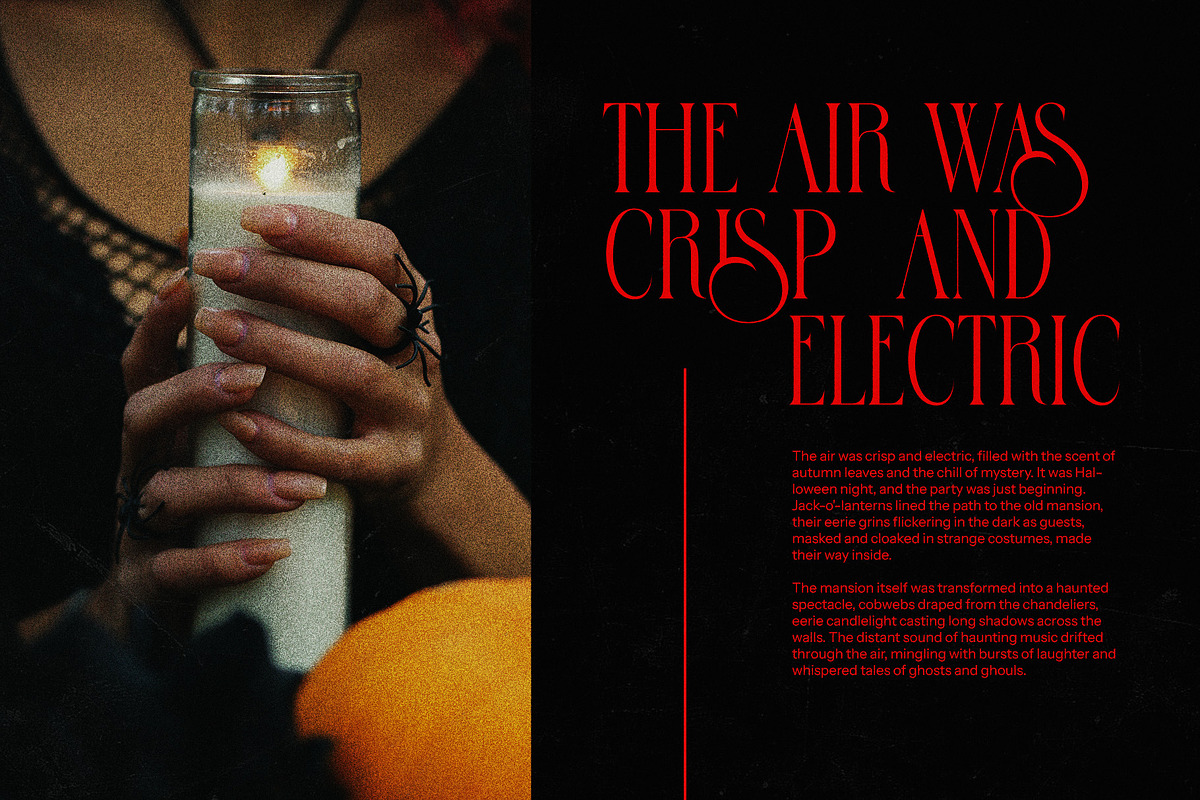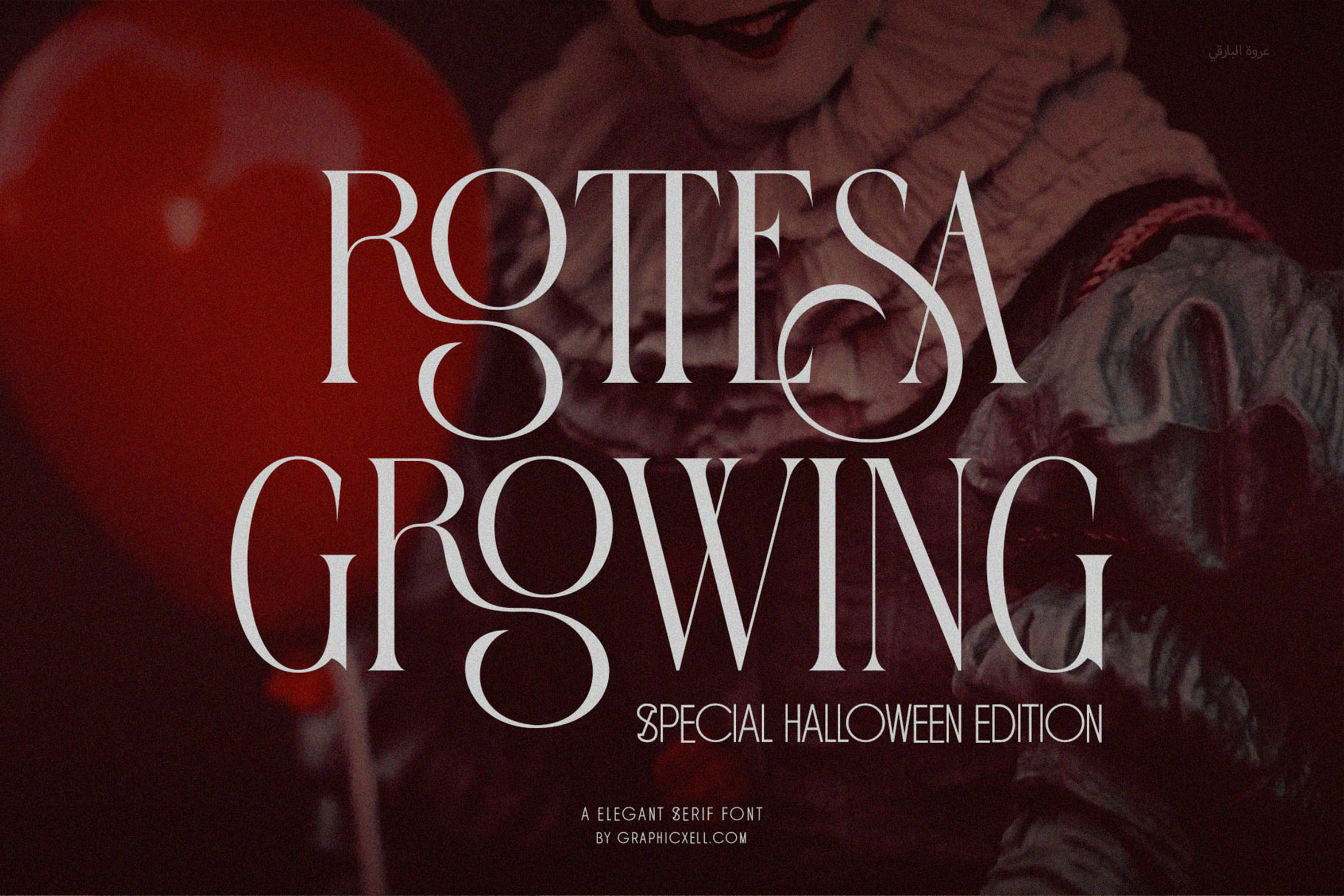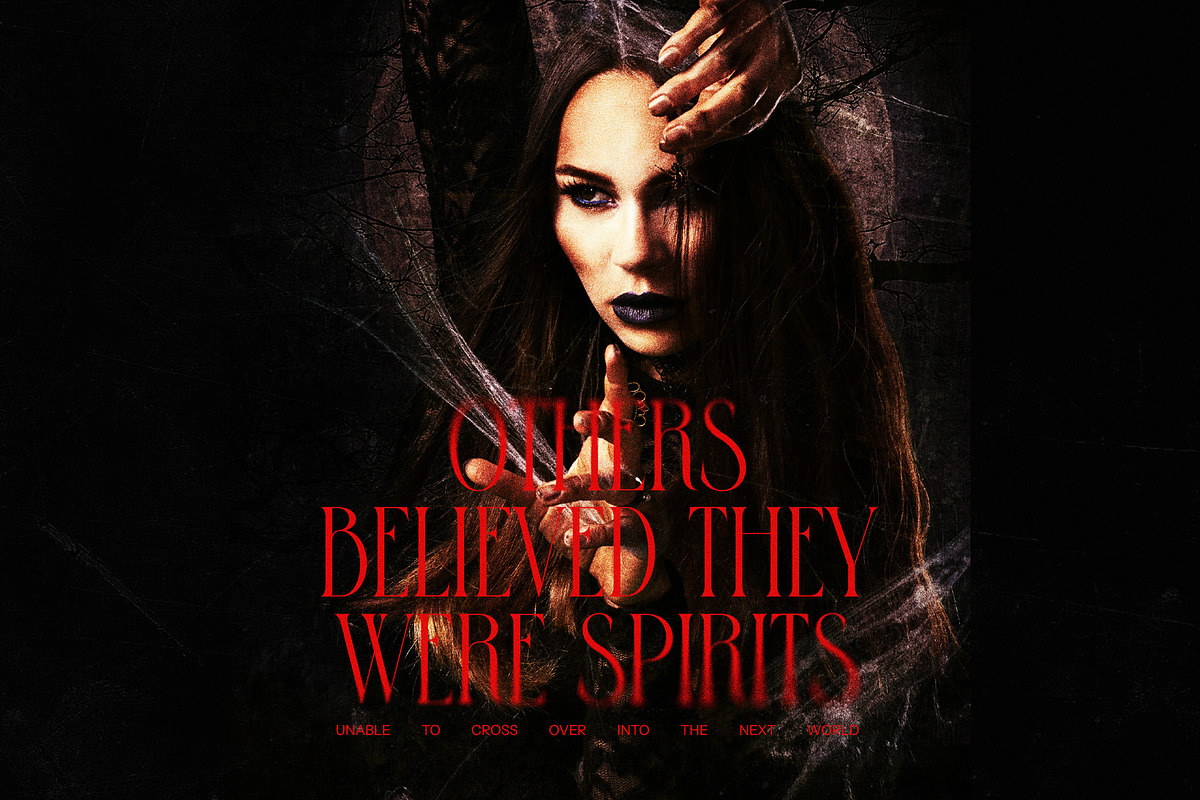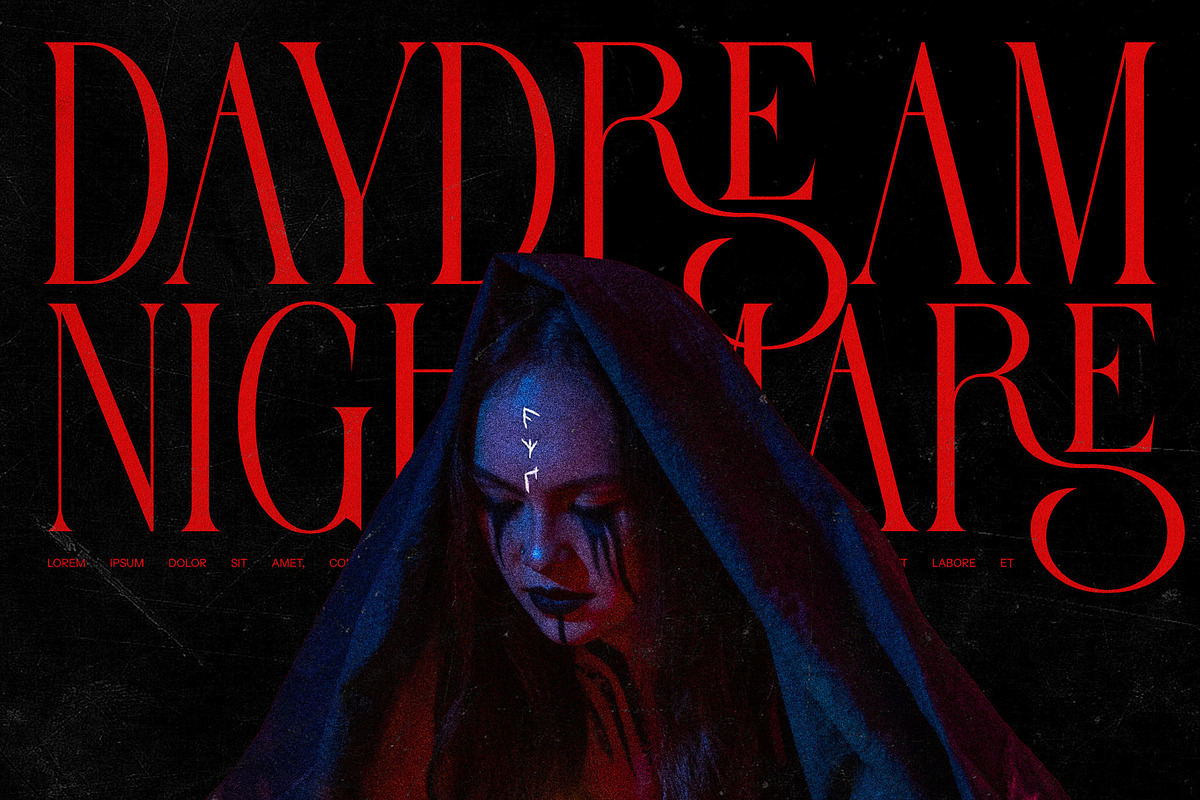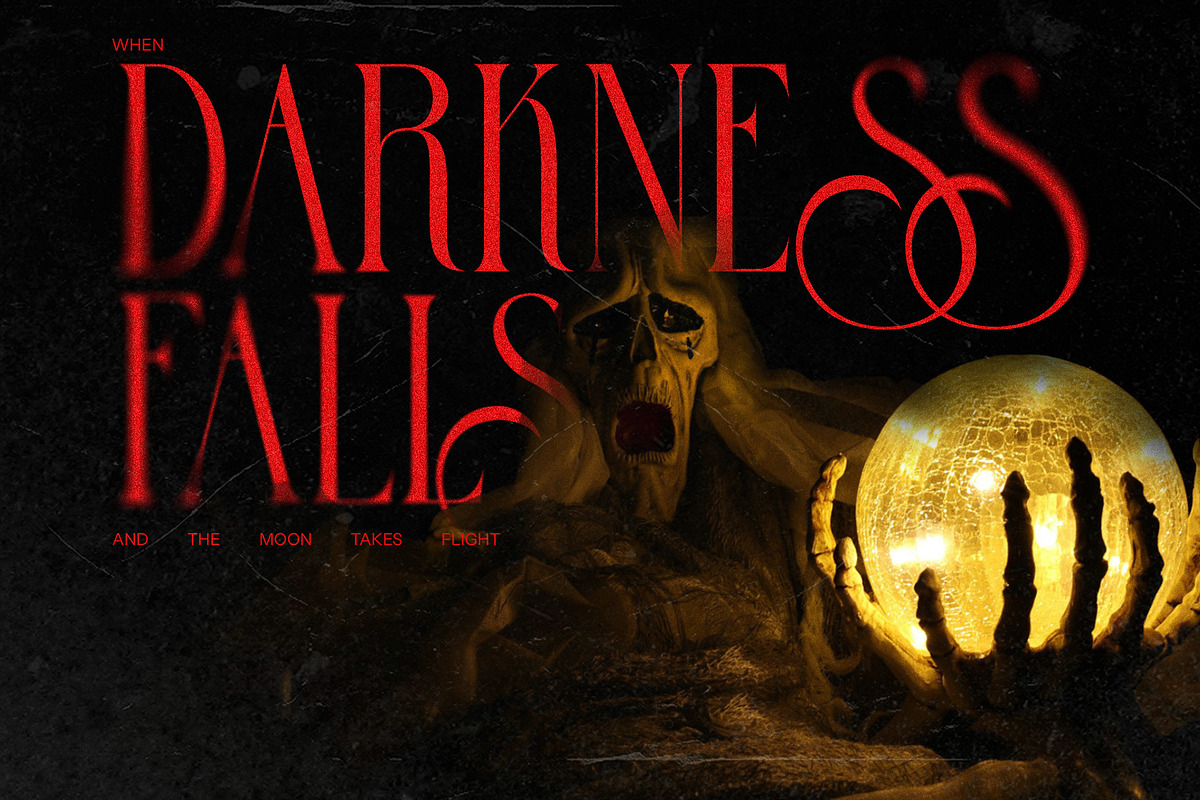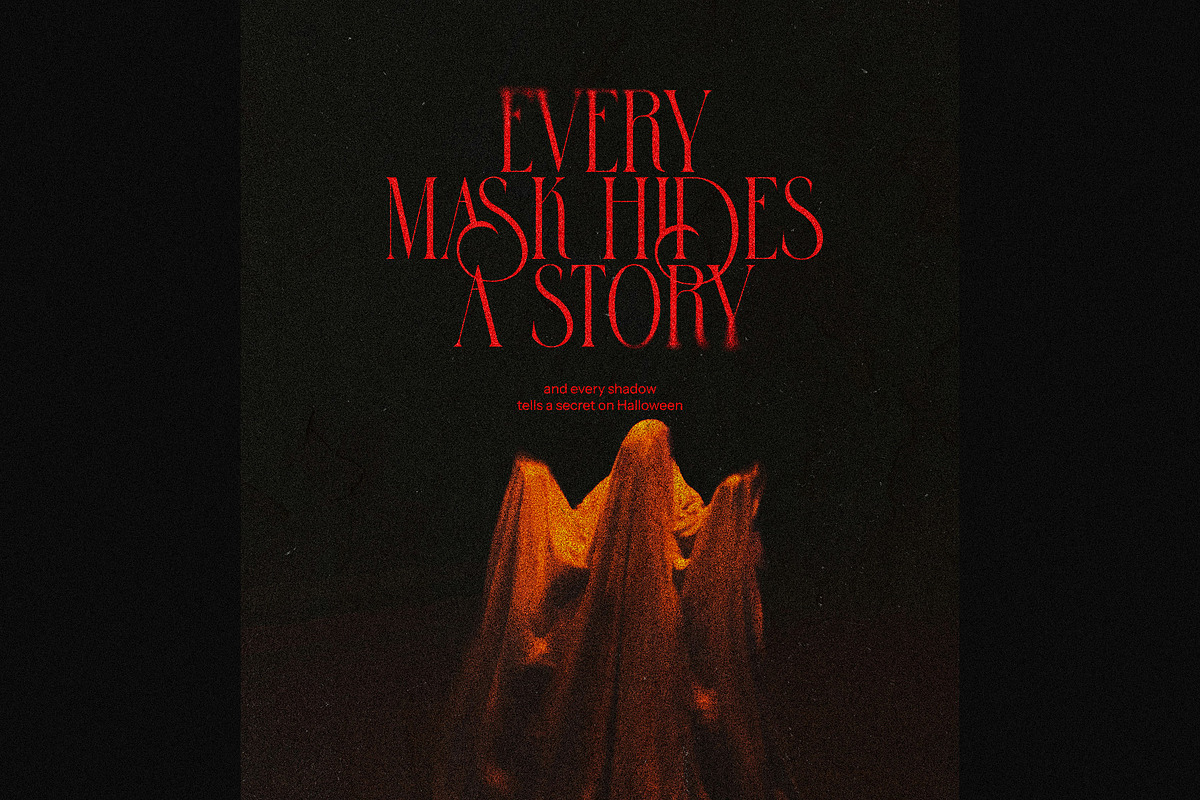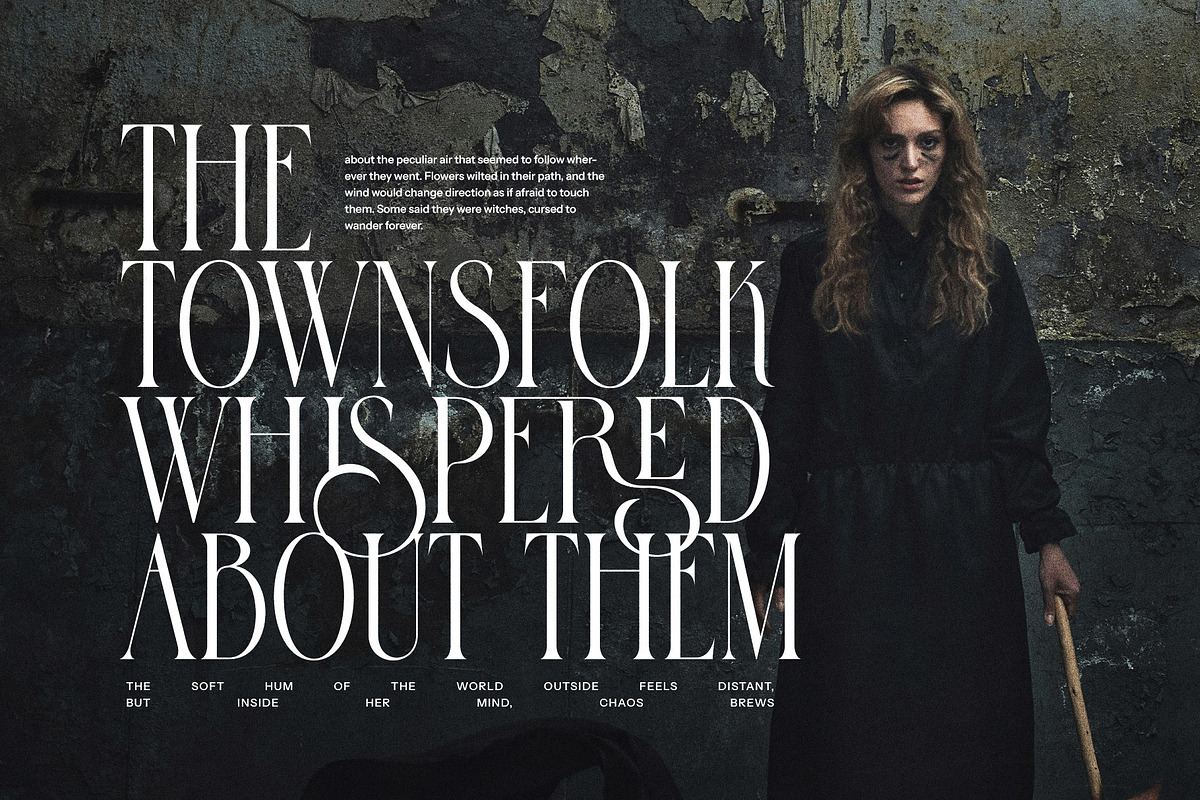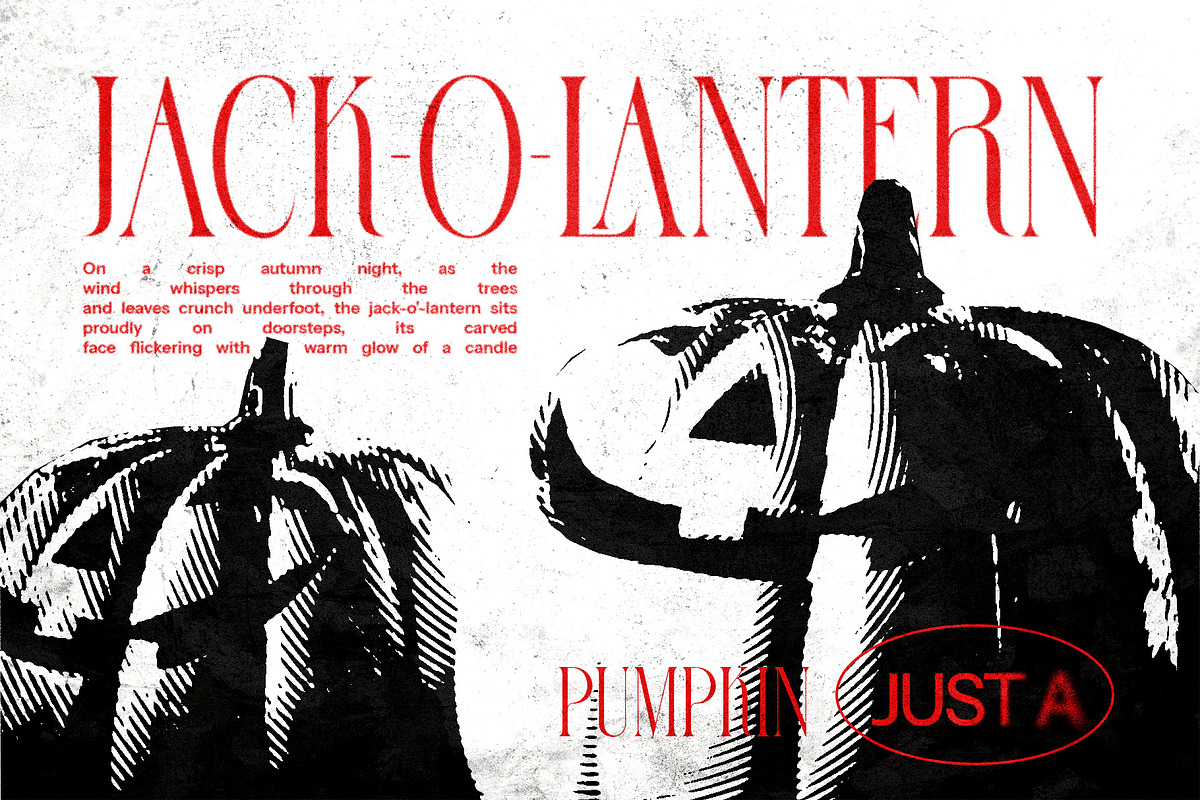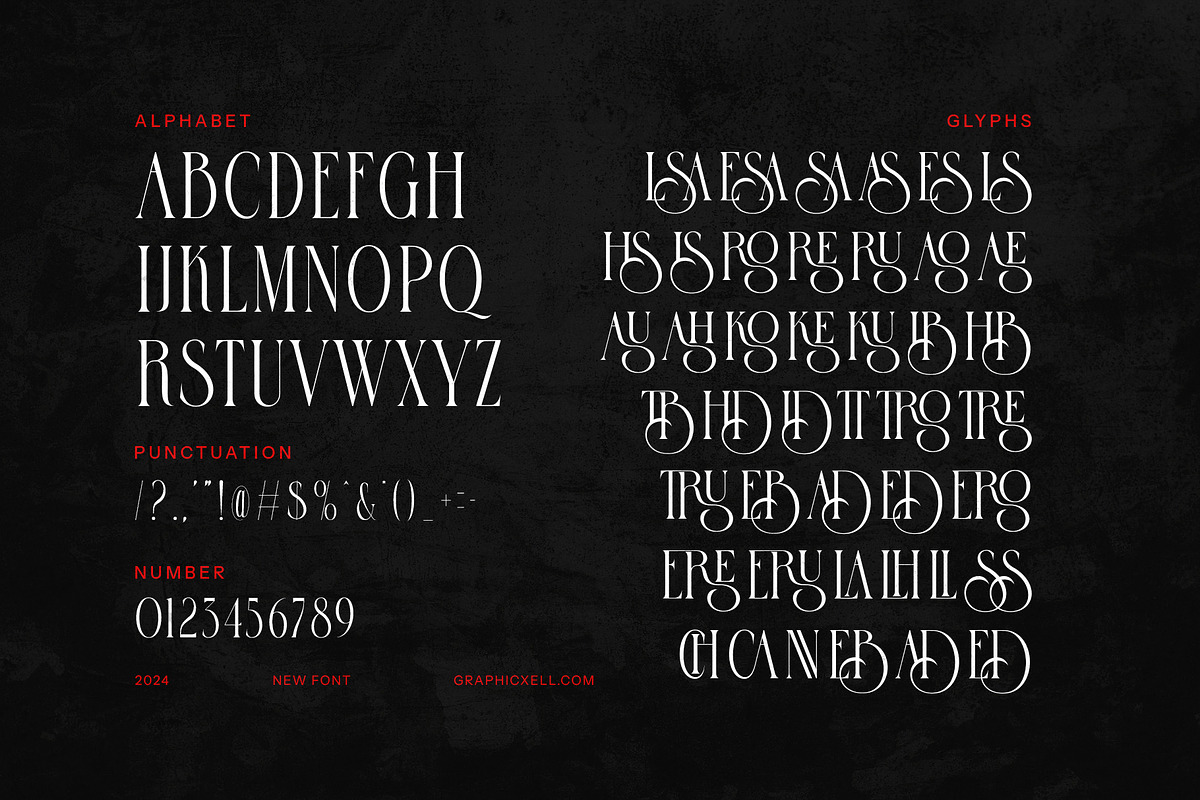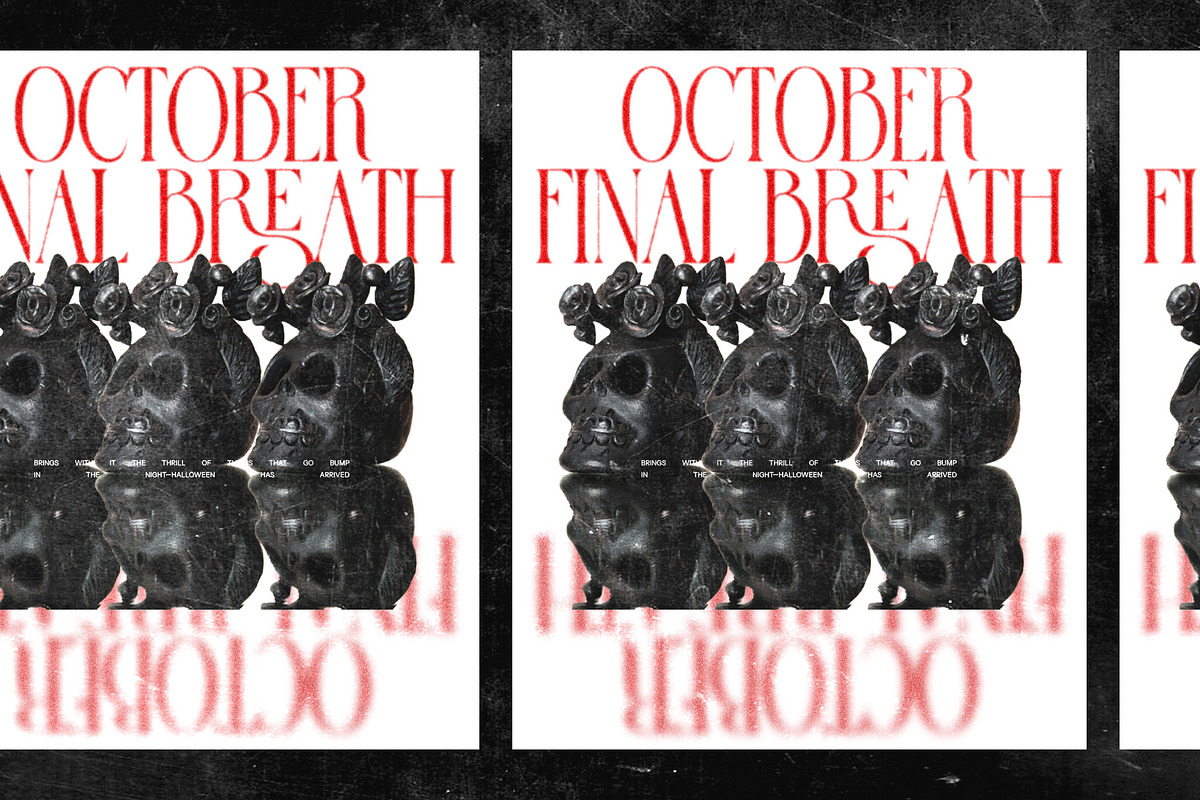
Rottesa Growing Ligature Serif Font
Rottesa Elegant Serif Font Typeface is a new serif font that comes with a bold writing style. It looks simple, making the font appropriate for a formal design. The first thing that commands attention is the boldness, creating a strong presence. With its robust quality, this brings a great value to your project. In addition, the solid design really enhances your project’s visual impact. So, the Rottesa Elegant Serif Font Typeface will be perfect for any graphic designer. The axis adds a uniqueness and creativity on this typeface. However, its simplicity keeps the readability level high. The stunning counterstroke, bracket, and thick & thin lines are blended perfectly, creating an impressive appearance. Whether you want to use it for invitations, photography, wedding designs, or other projects, it will be satisfying, thanks to its elegance. It also has a flexible application where it is suitable for different design styles. With the Strong Elegant Serif Font Typeface, you can make your own classy design.